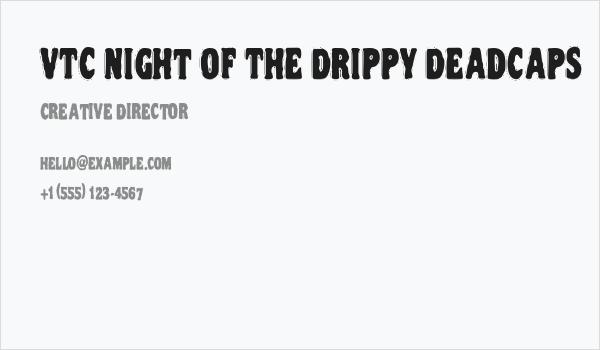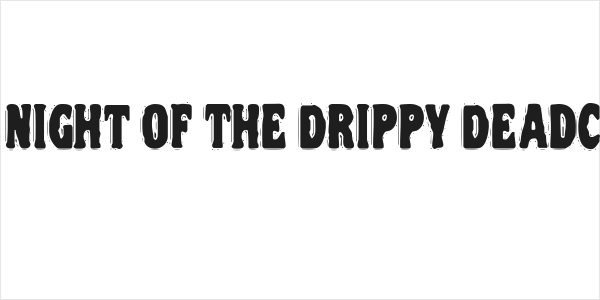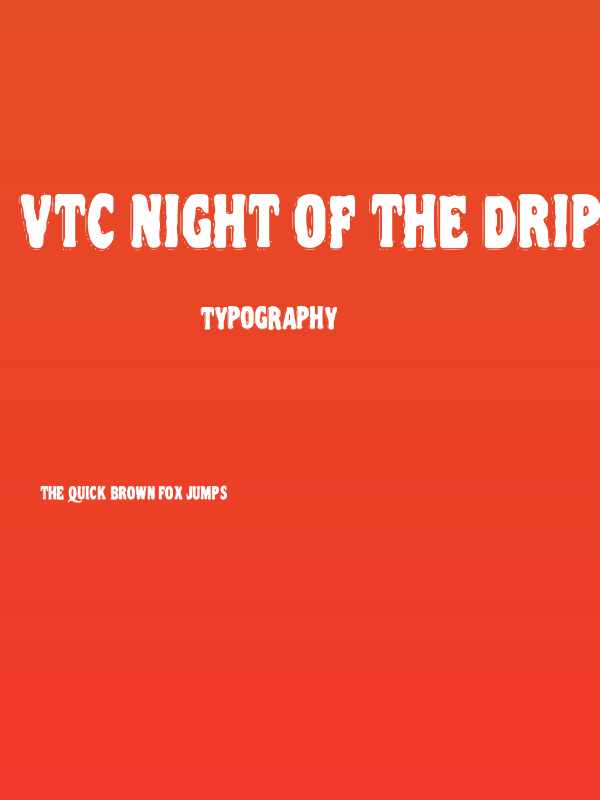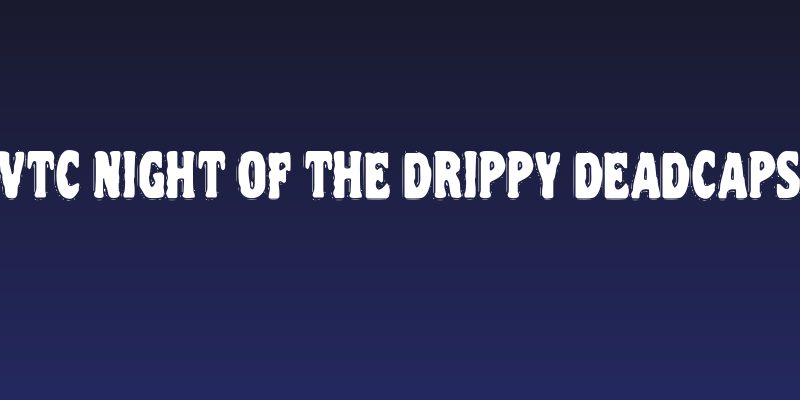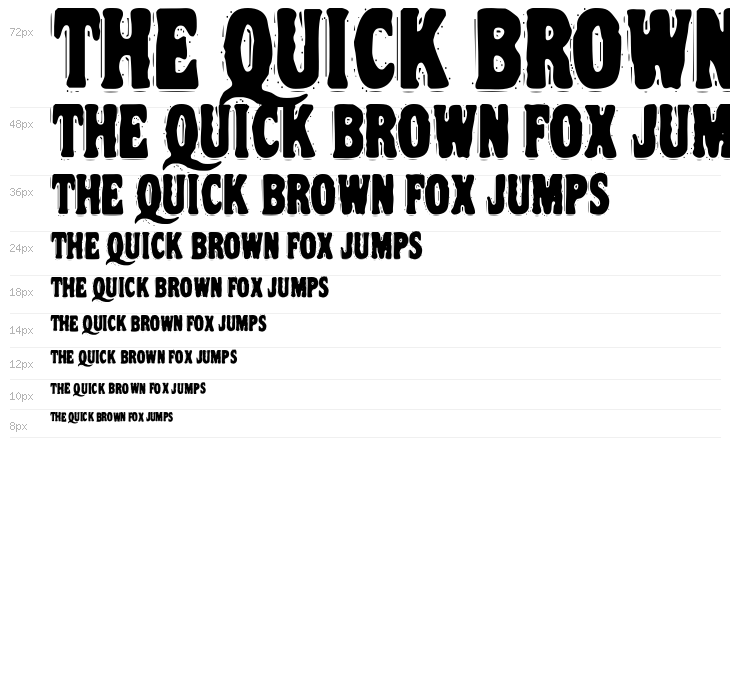
VTC Night Of The Drippy DeadCaps Font
VTC Night Of The Drippy DeadCaps Description
This font features a bold and playful design with a dripping effect that gives it a spooky, Halloween-inspired look. The characters are thick and rounded, with irregular edges that mimic the appearance of melting or dripping liquid. This unique style is consistent across uppercase letters, numbers, and special characters, creating a cohesive and eye-catching appearance. The font's boldness and distinctive style make it ideal for attention-grabbing designs. Its decorative nature is perfect for themed events, especially those with a horror or playful theme. The characters are evenly spaced, ensuring readability despite their unconventional design.
| Proposed Projects | Ideal for Halloween-themed designs, party invitations, horror movie posters, and playful branding. |